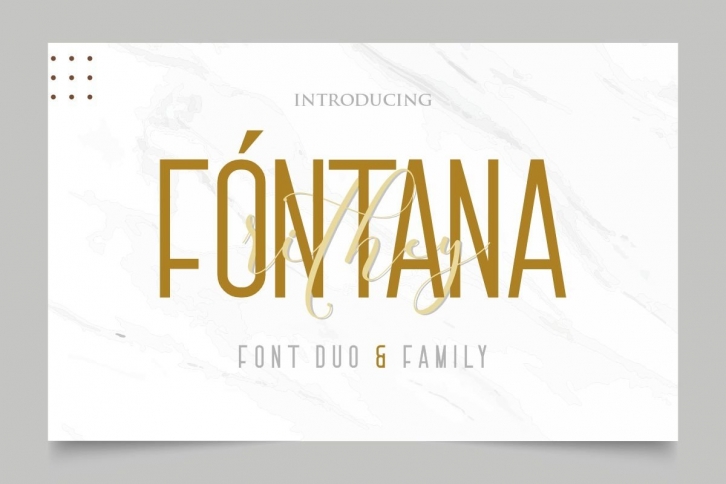
ana Rithey is a trendy and unique font with an authentic style. It was designed by Gilar Studio and it's a great choice for creative people who need such a font. It was released on July 3, 2020 and the file size is 7.33 MB. ana Rithey will add an organic vibe to any design idea!